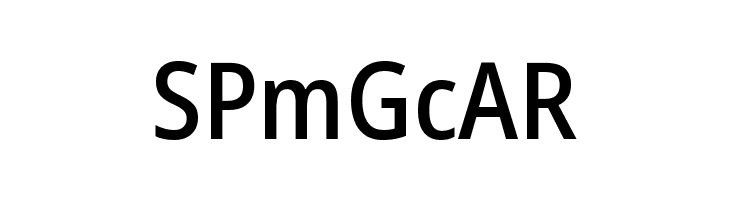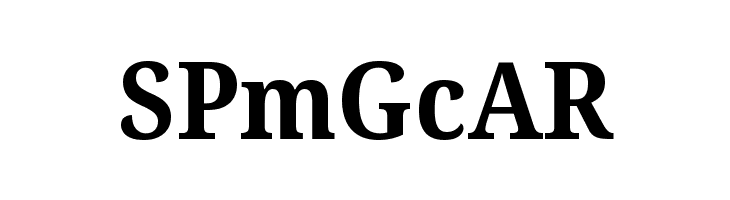
A modern, extra condensed sans-serif font with a light weight and clean design.
A modern, semi-condensed sans-serif typeface with a clean and versatile design.
A modern, extra bold, and highly condensed font with tight spacing.
A bold, condensed typeface with a modern and clean aesthetic.
A bold, modern font with clear, evenly spaced characters.
A bold, semi-condensed serif font with moderate contrast and classic styling.
A modern, semi-condensed Thai font with a light weight and clean design.
A clean, modern font with semi-condensed, extra light characteristics for elegant readability.
A semi-condensed serif font with a semi-bold weight, offering elegance and readability.
A bold, condensed font with a modern and robust style.